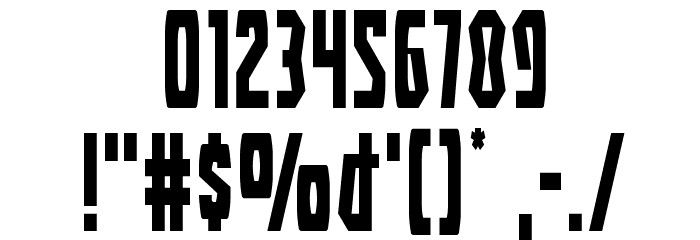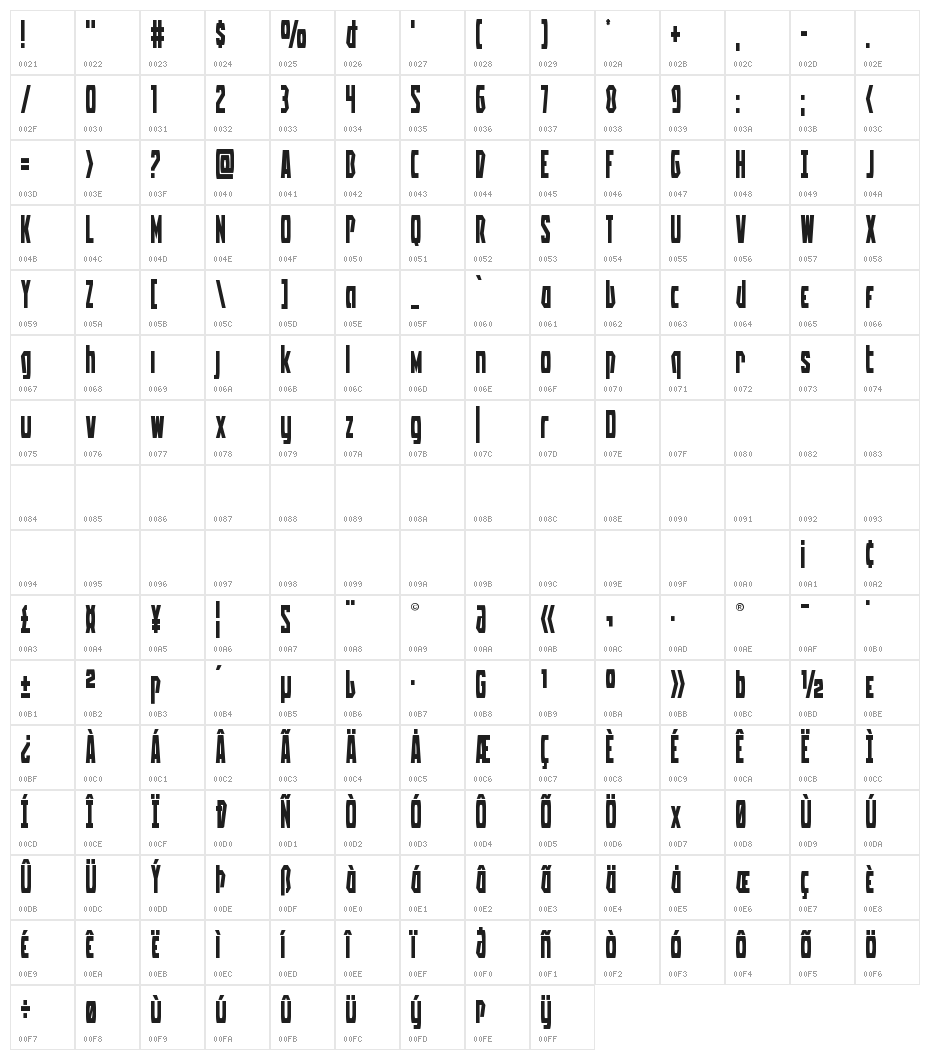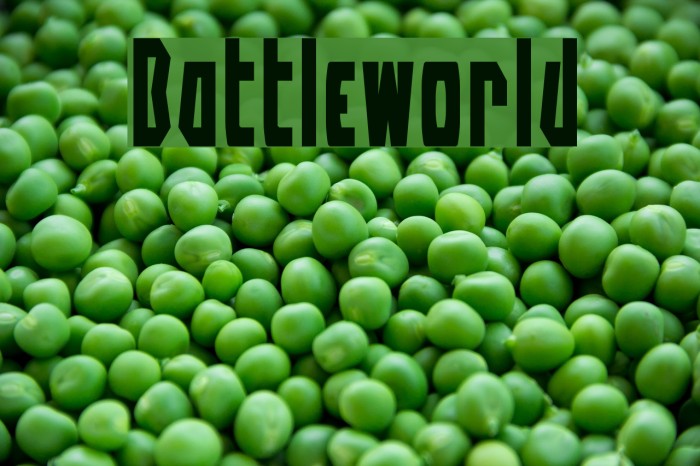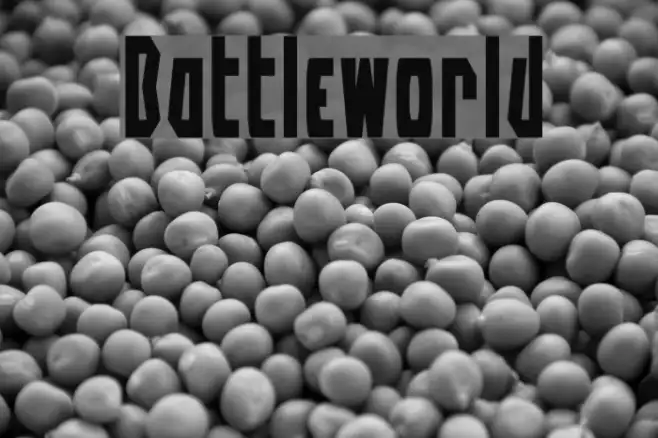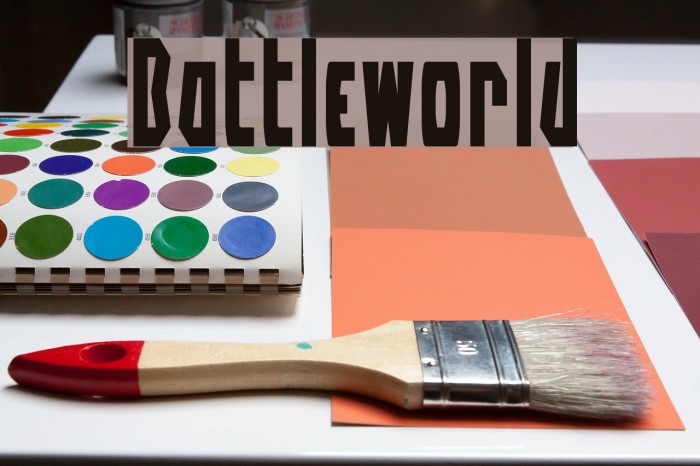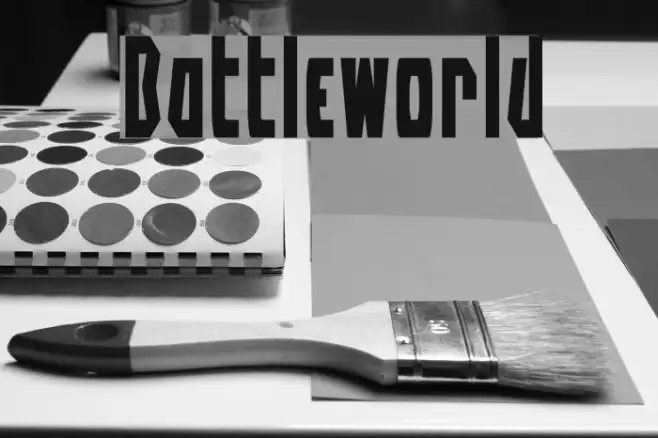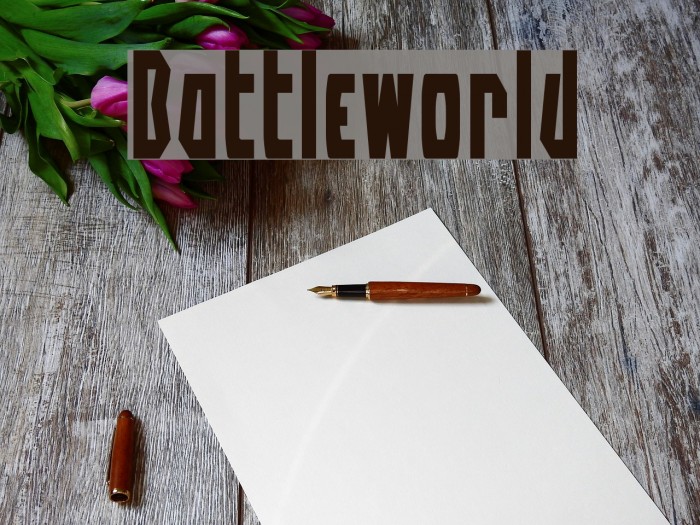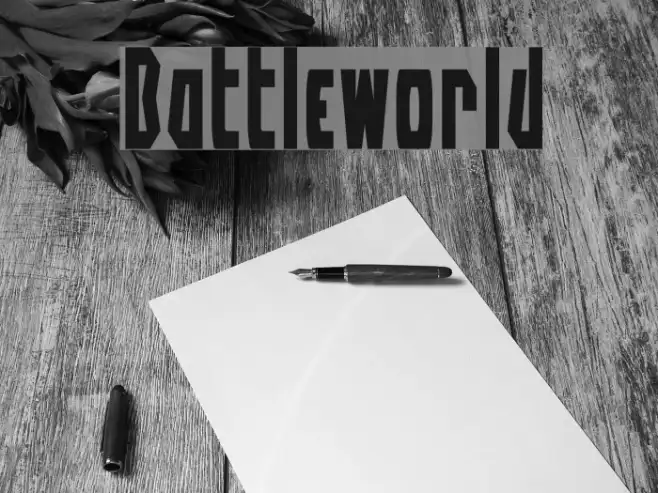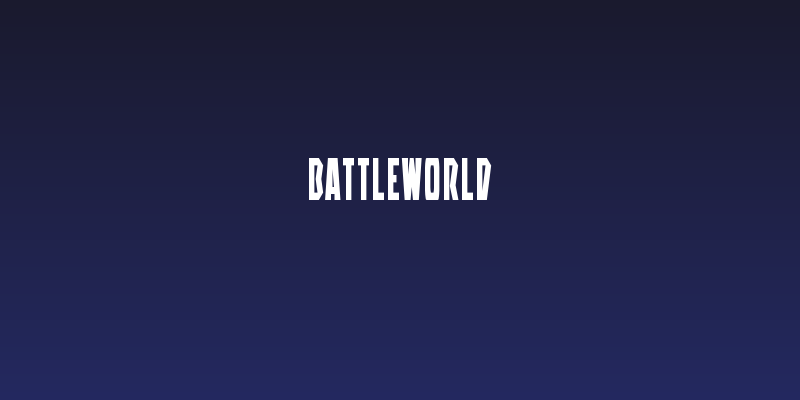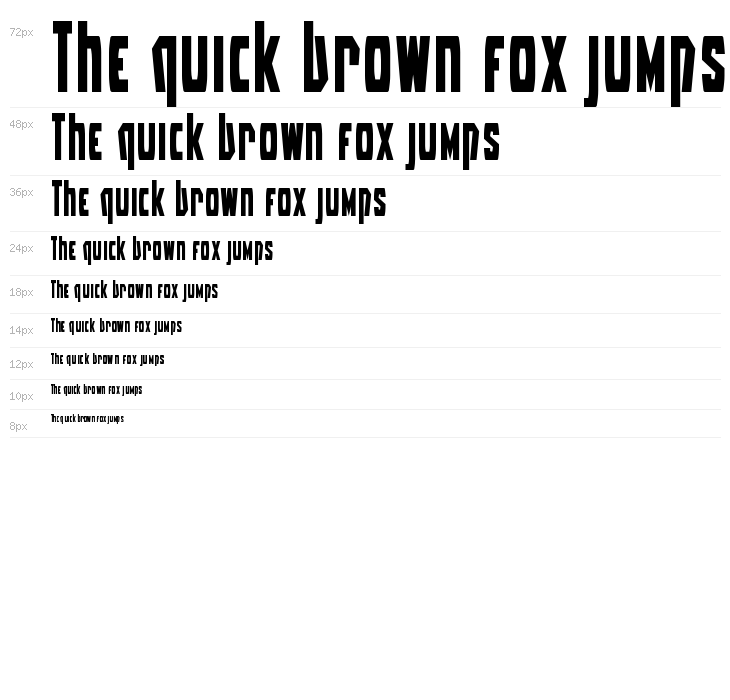
Battleworld Font
Battleworld Description
This font features a bold and dynamic style with sharp, angular edges and a strong geometric structure. The uppercase and lowercase letters maintain a consistent height, giving it a uniform appearance. The numbers and special characters are designed to match the boldness of the letters, making them stand out. The overall design is modern and impactful, suitable for projects that require a strong visual presence. The font's unique style makes it ideal for attention-grabbing headlines and titles.
| Proposed Projects | Ideal for posters, video game titles, comic book covers, and branding materials that require a bold and modern look. |